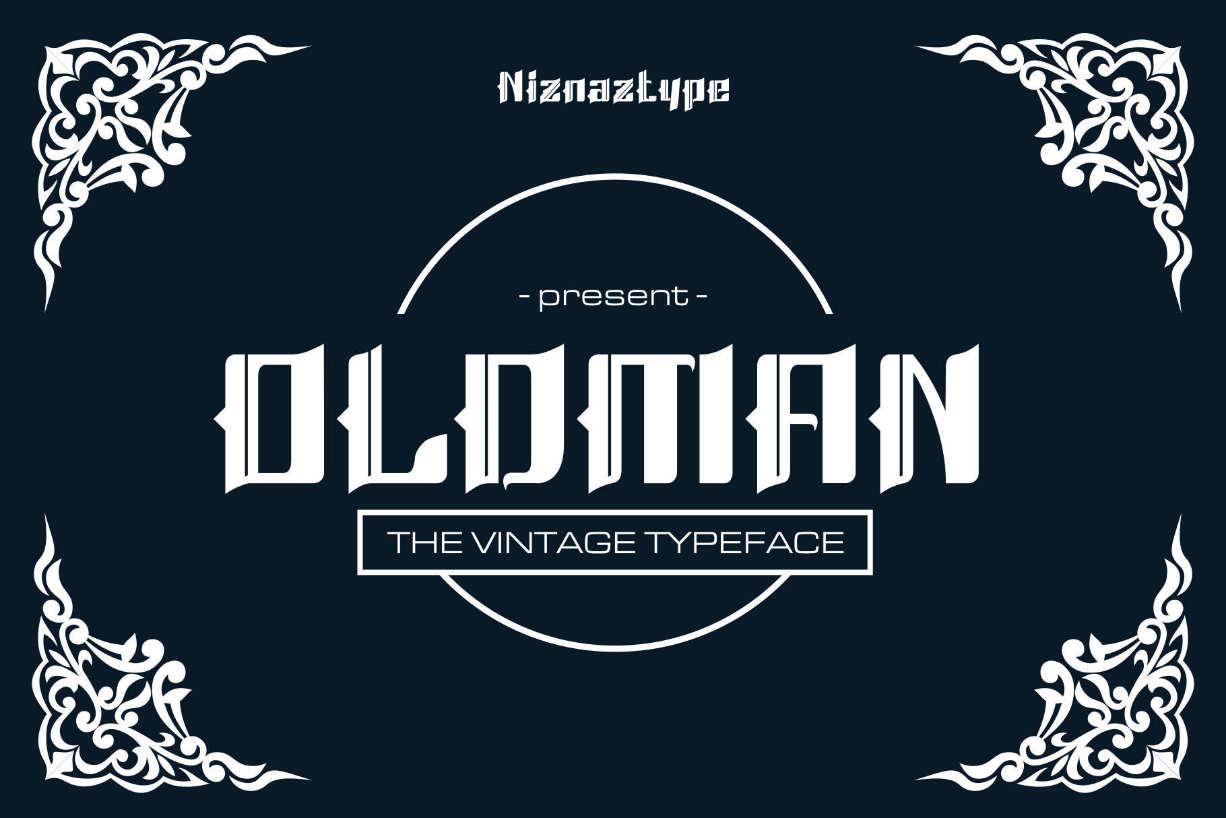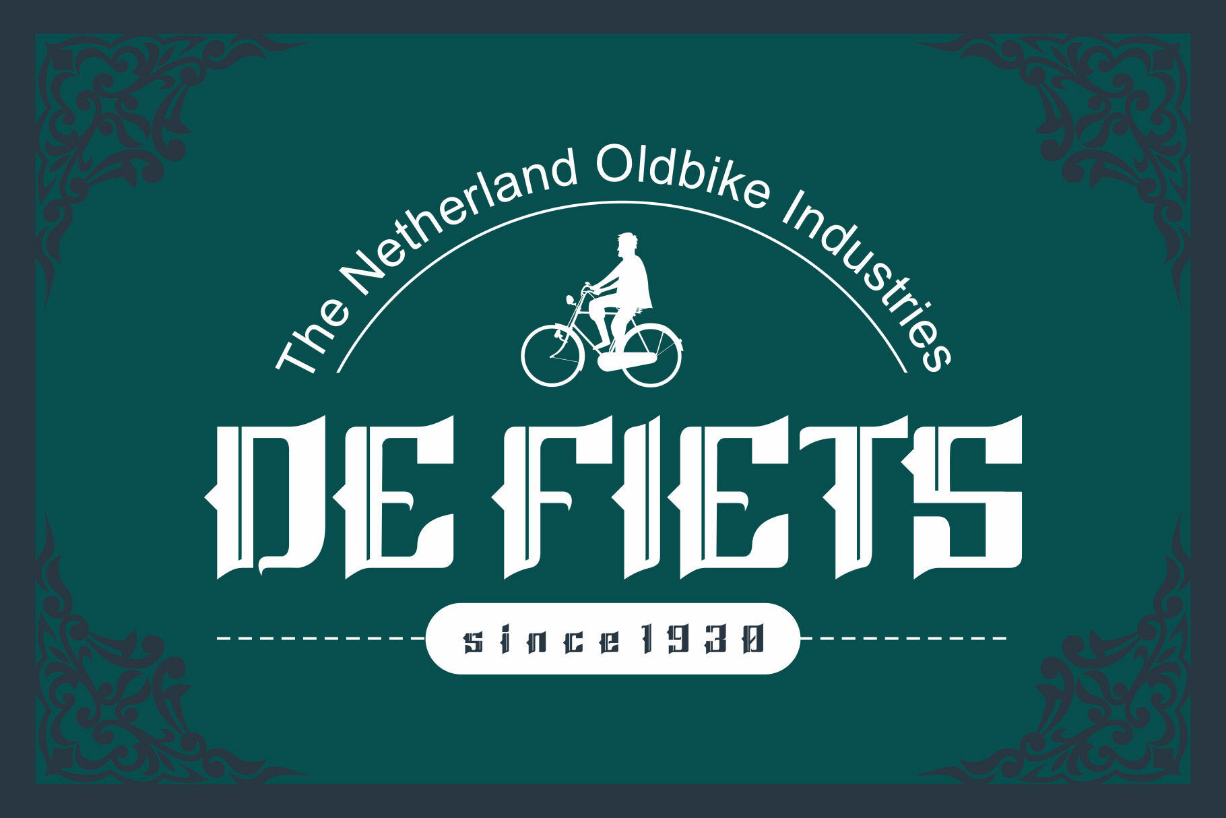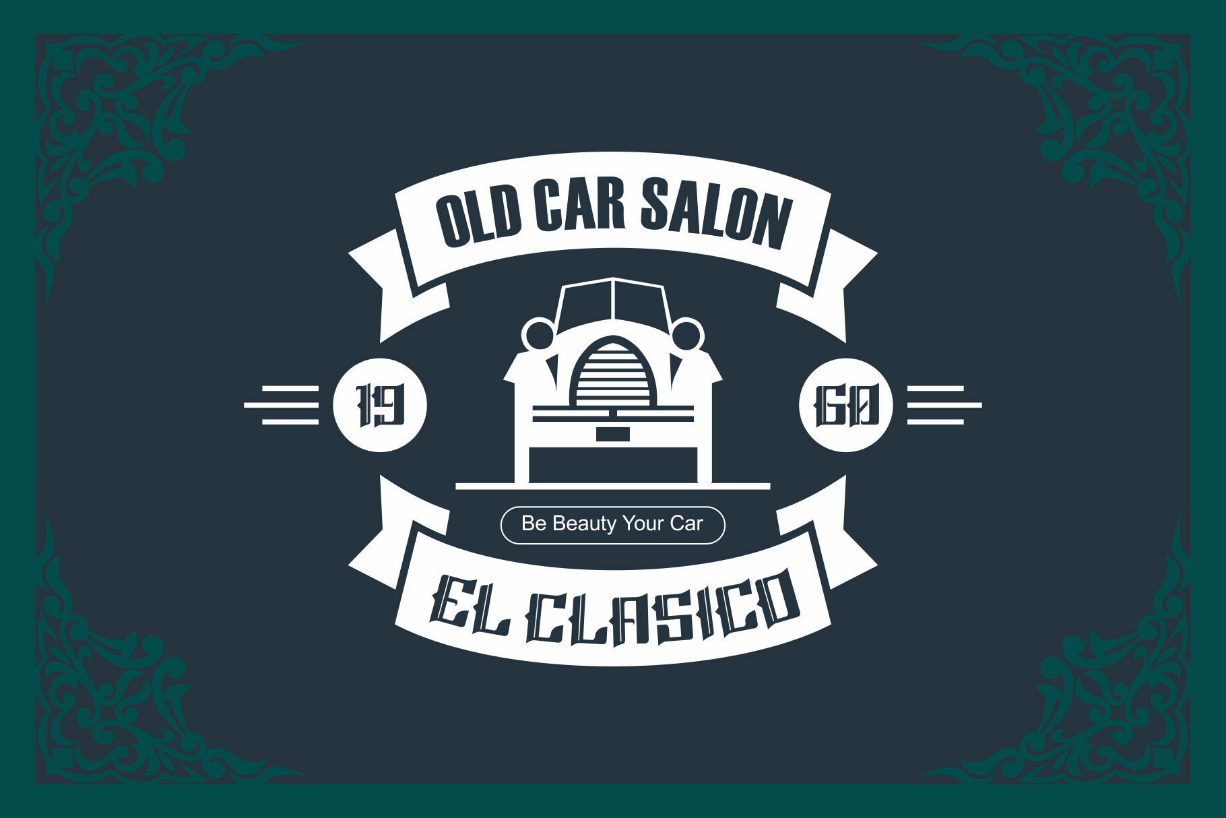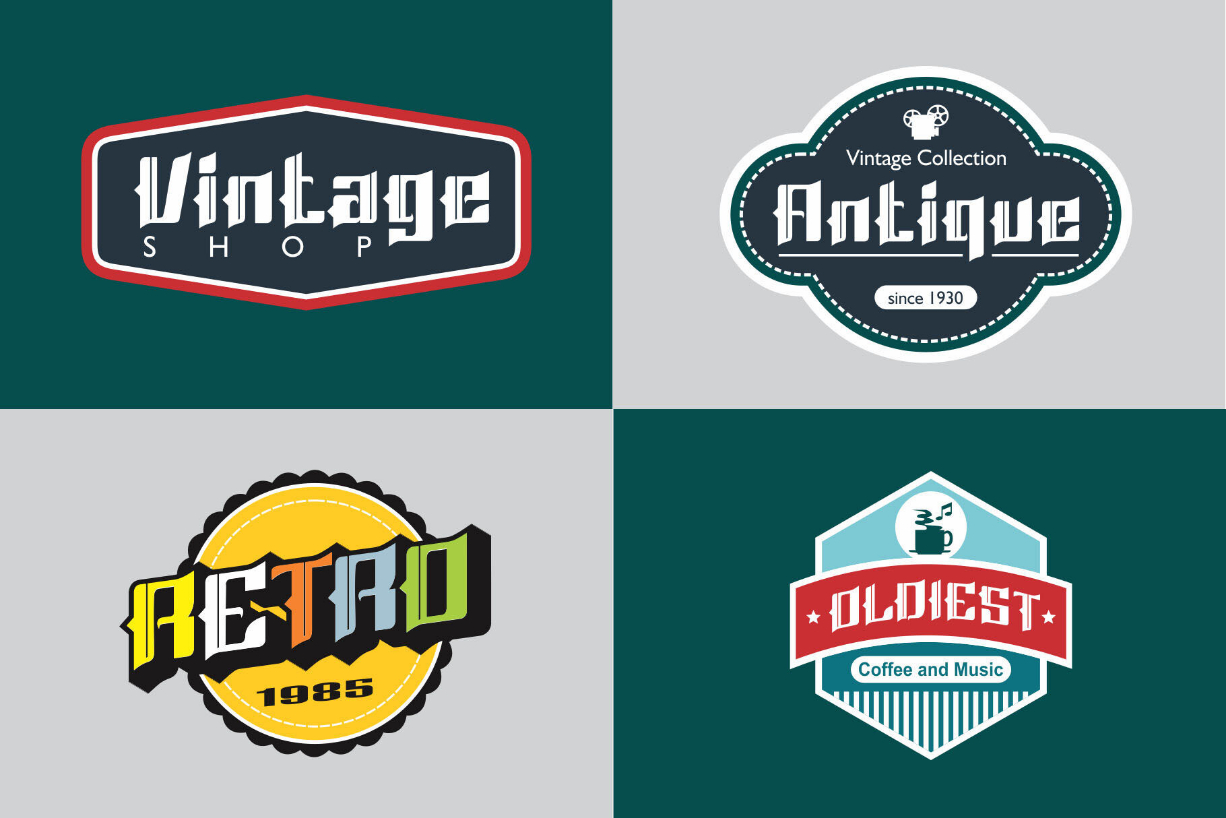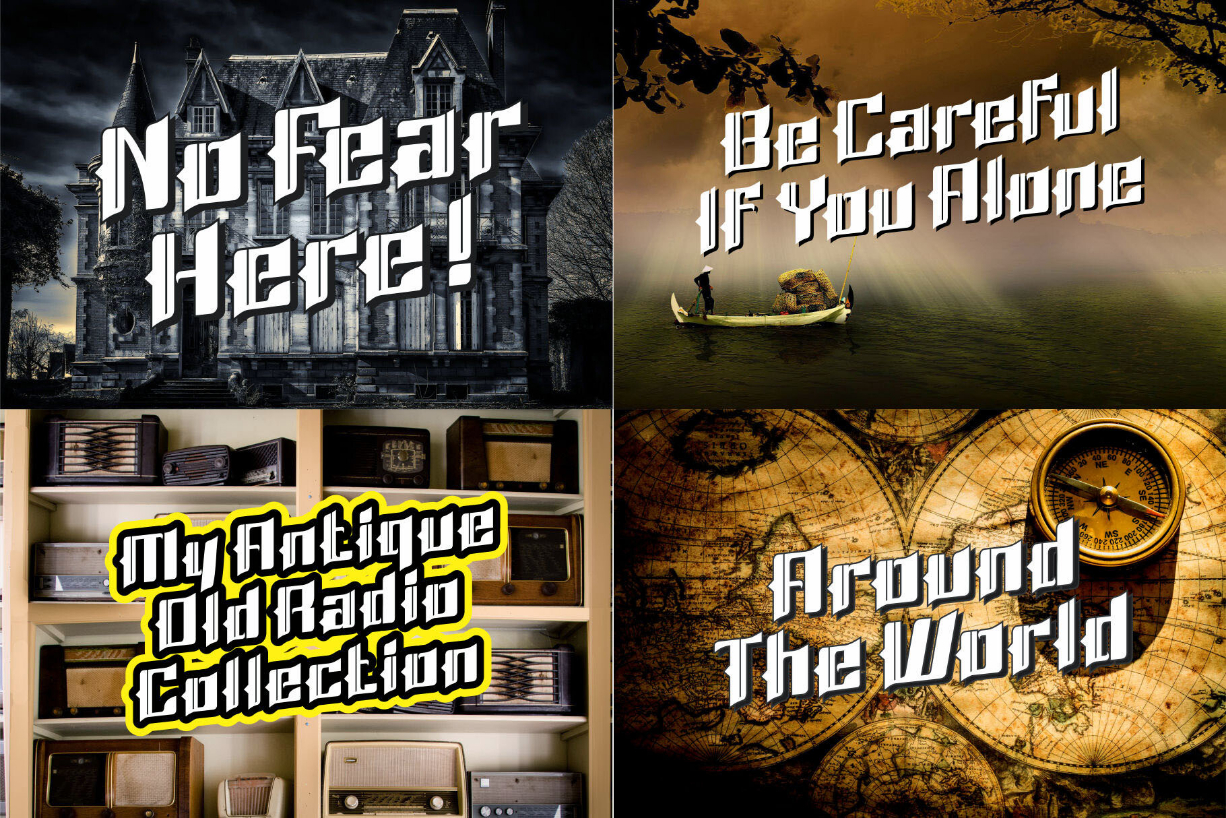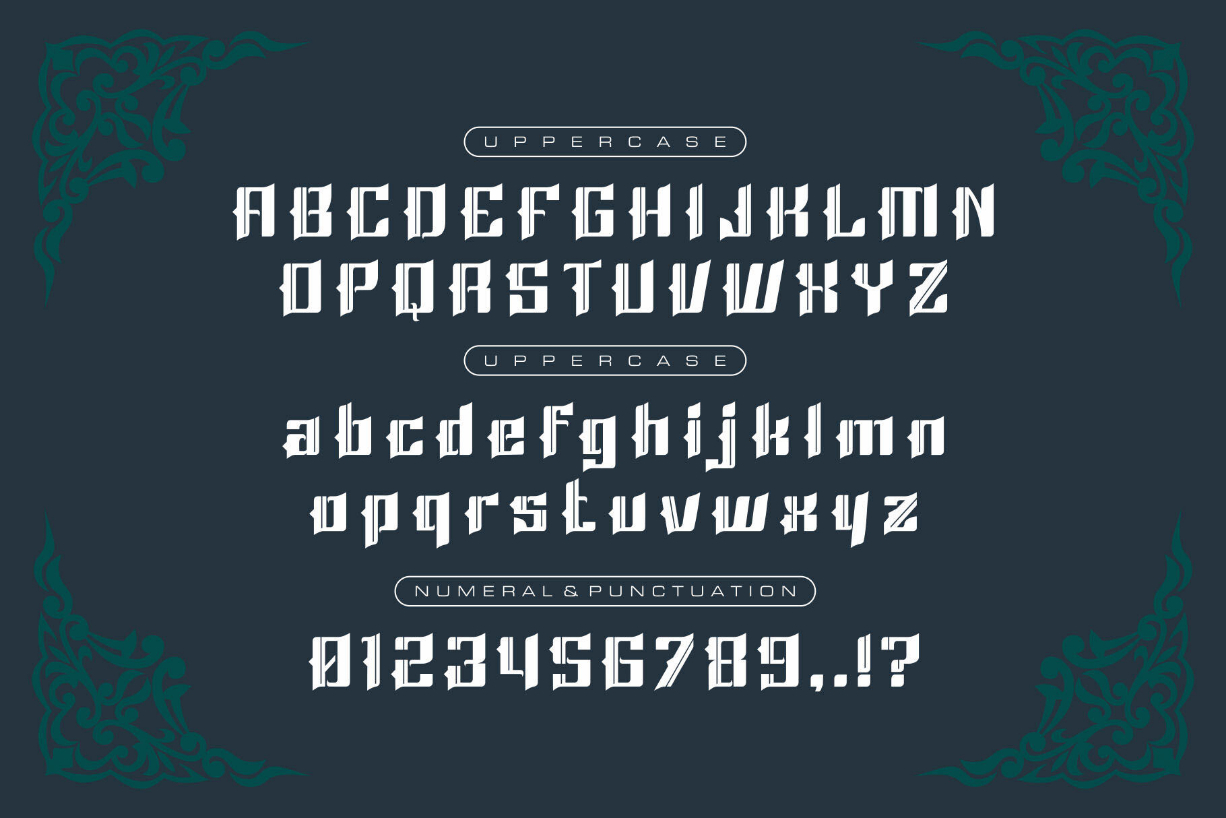
Oldman Font
About Oldman Font
Oldman is a new typeface with a vintage style. This font was created to reach a high quality in vintage design. Oldman font contains an uppercase, lowercase, numeral, and simple punctuation.
The design themes like gothic, vintage, oldies, retro, creepy, music, and others are very good using this Oldman font. T-shirts, headlines, posters, logos, and product titles will be the best things if you use this Oldman font.